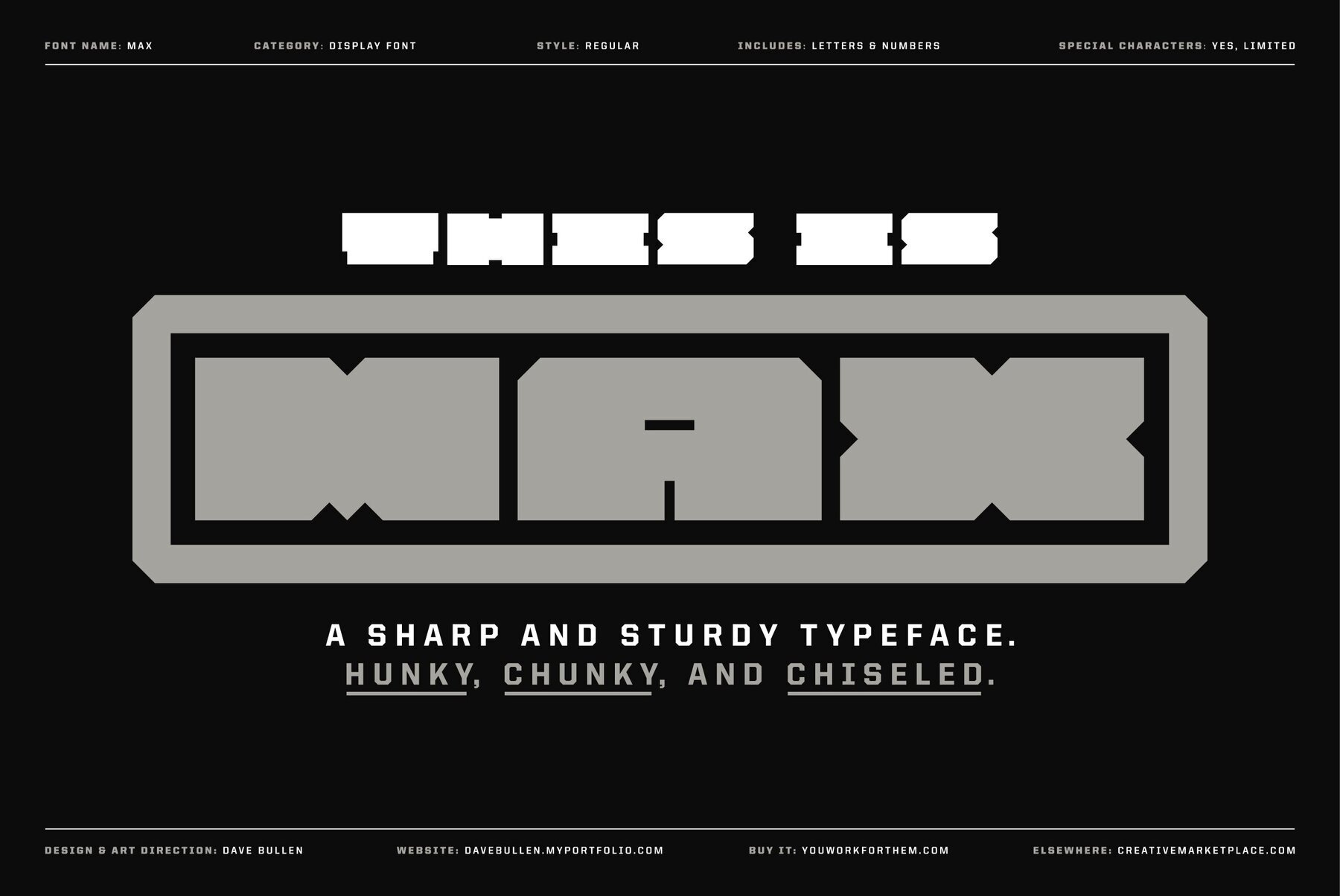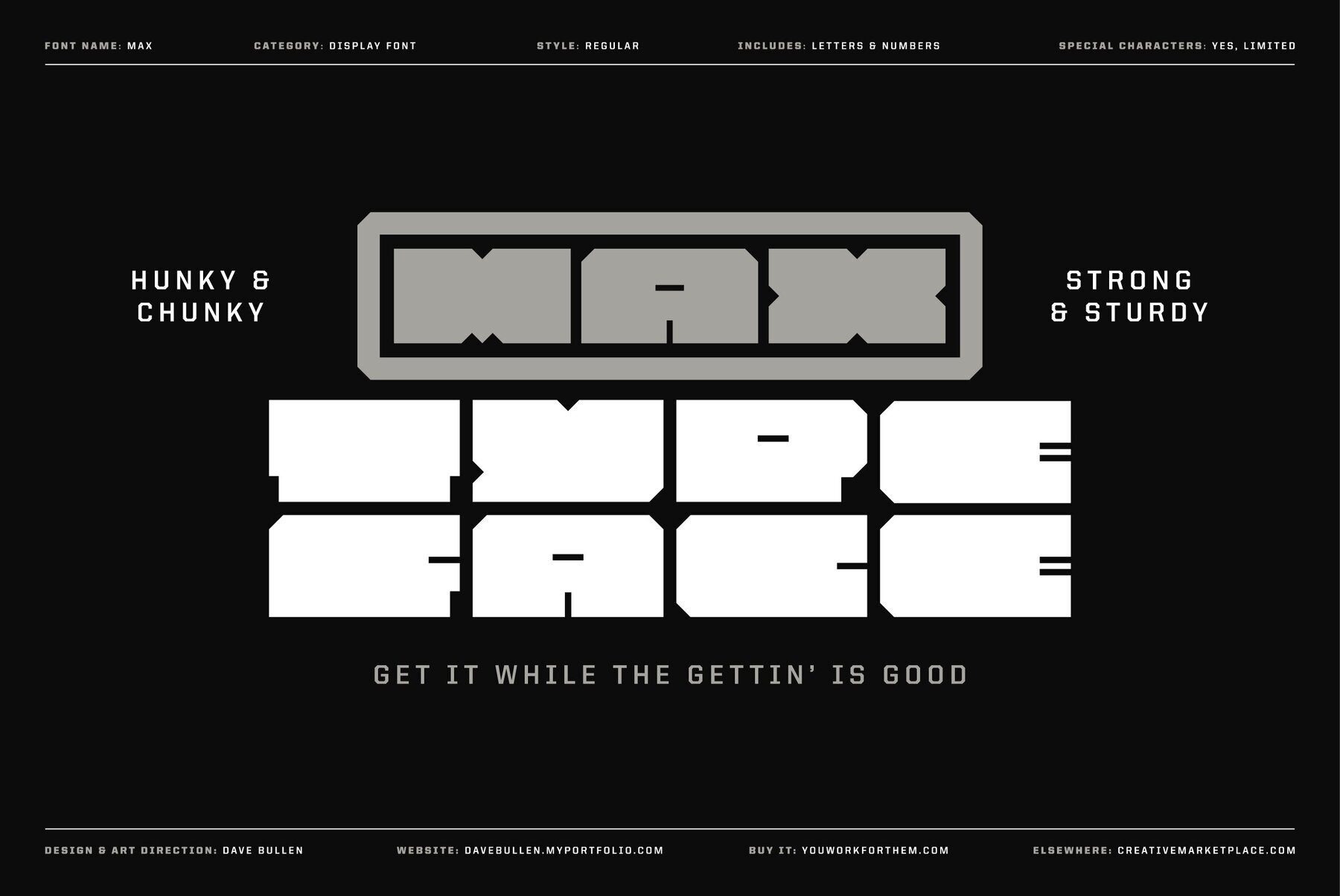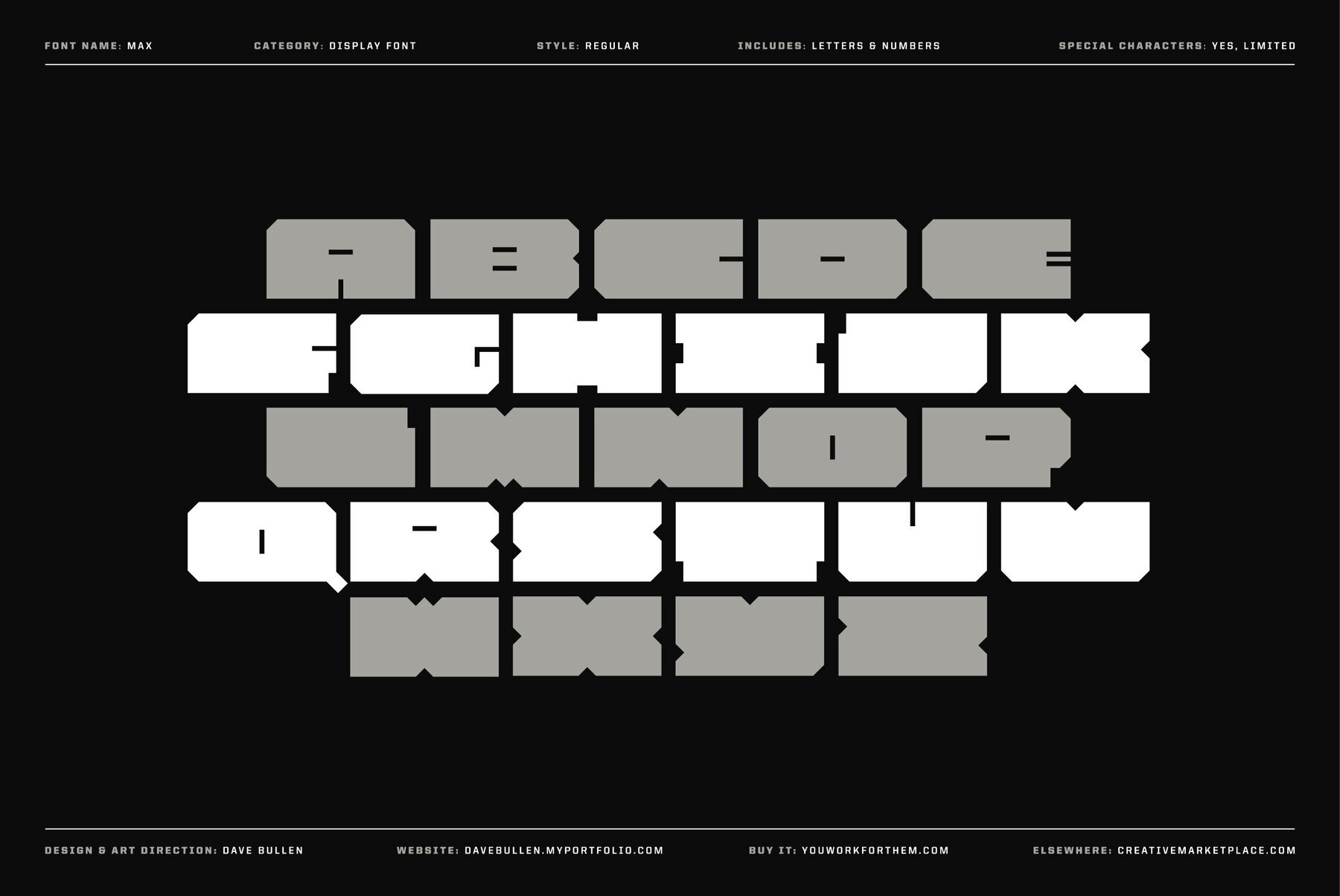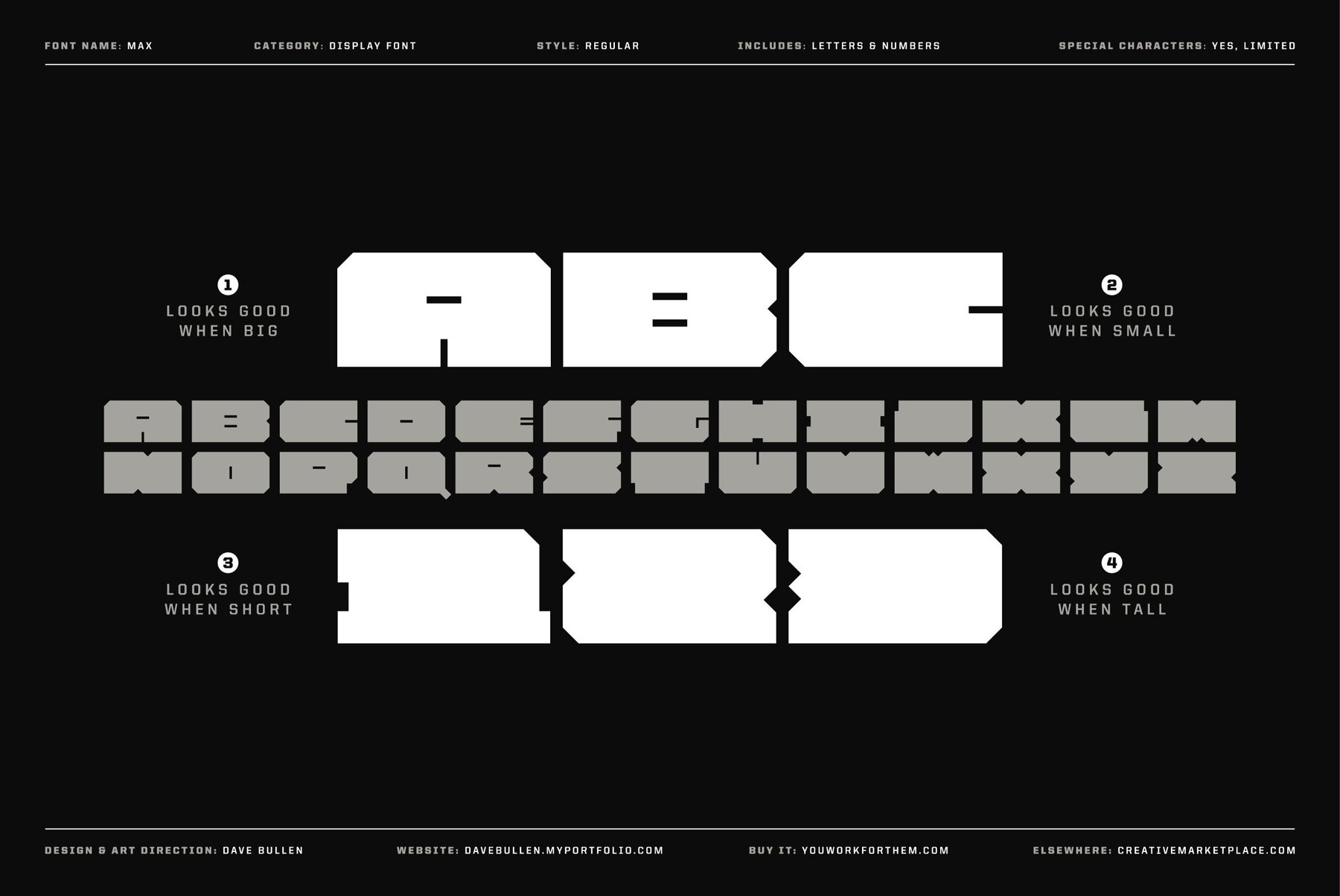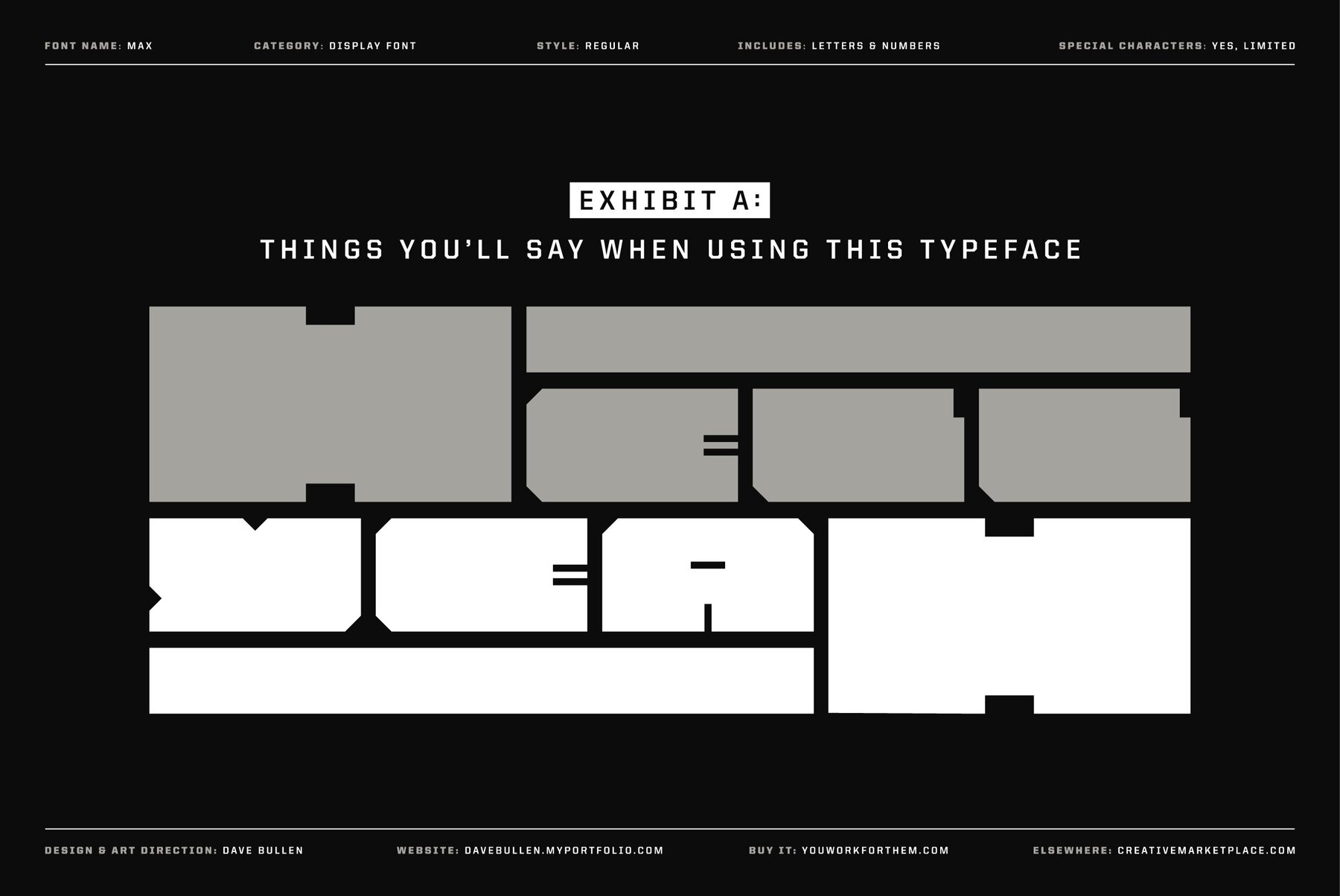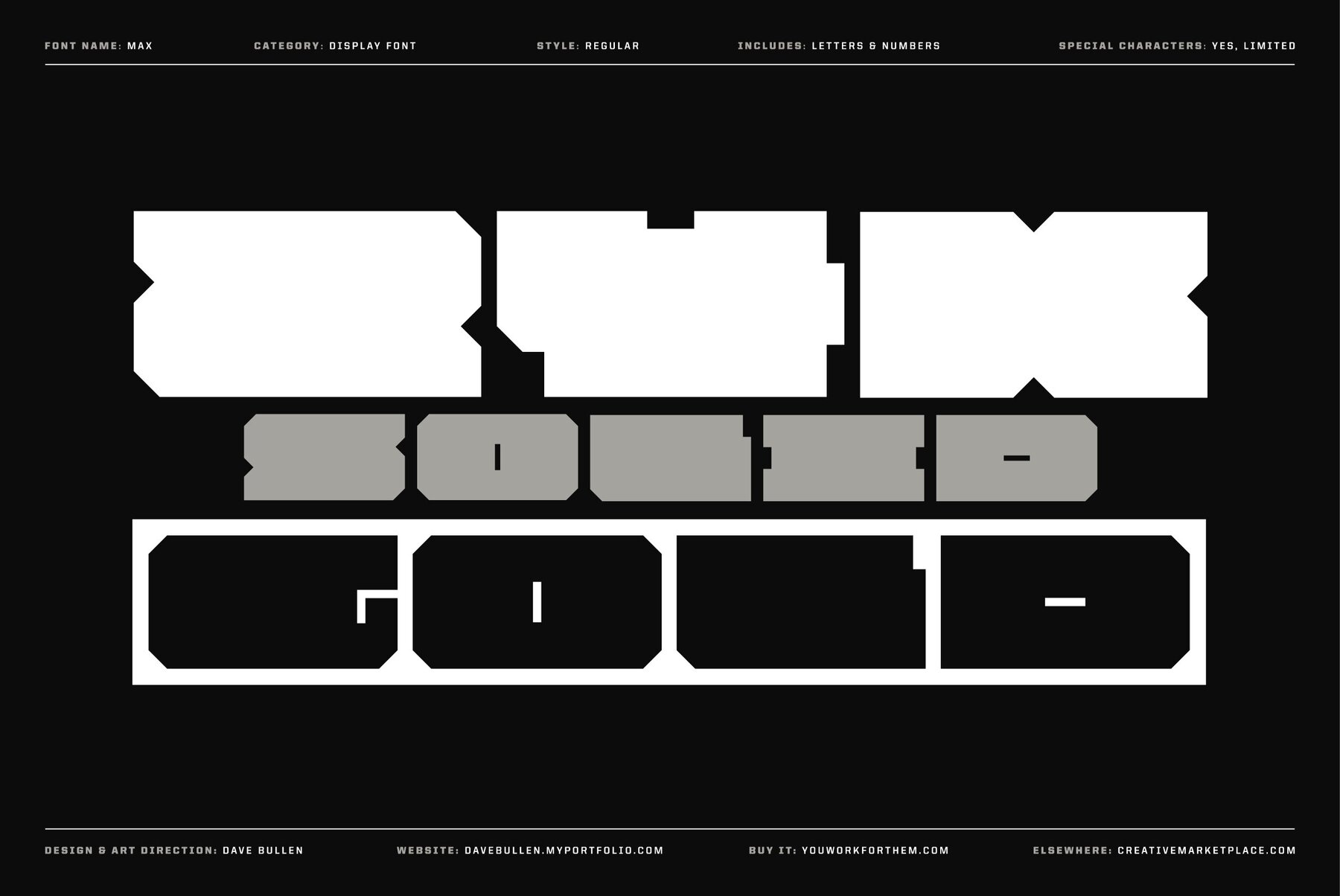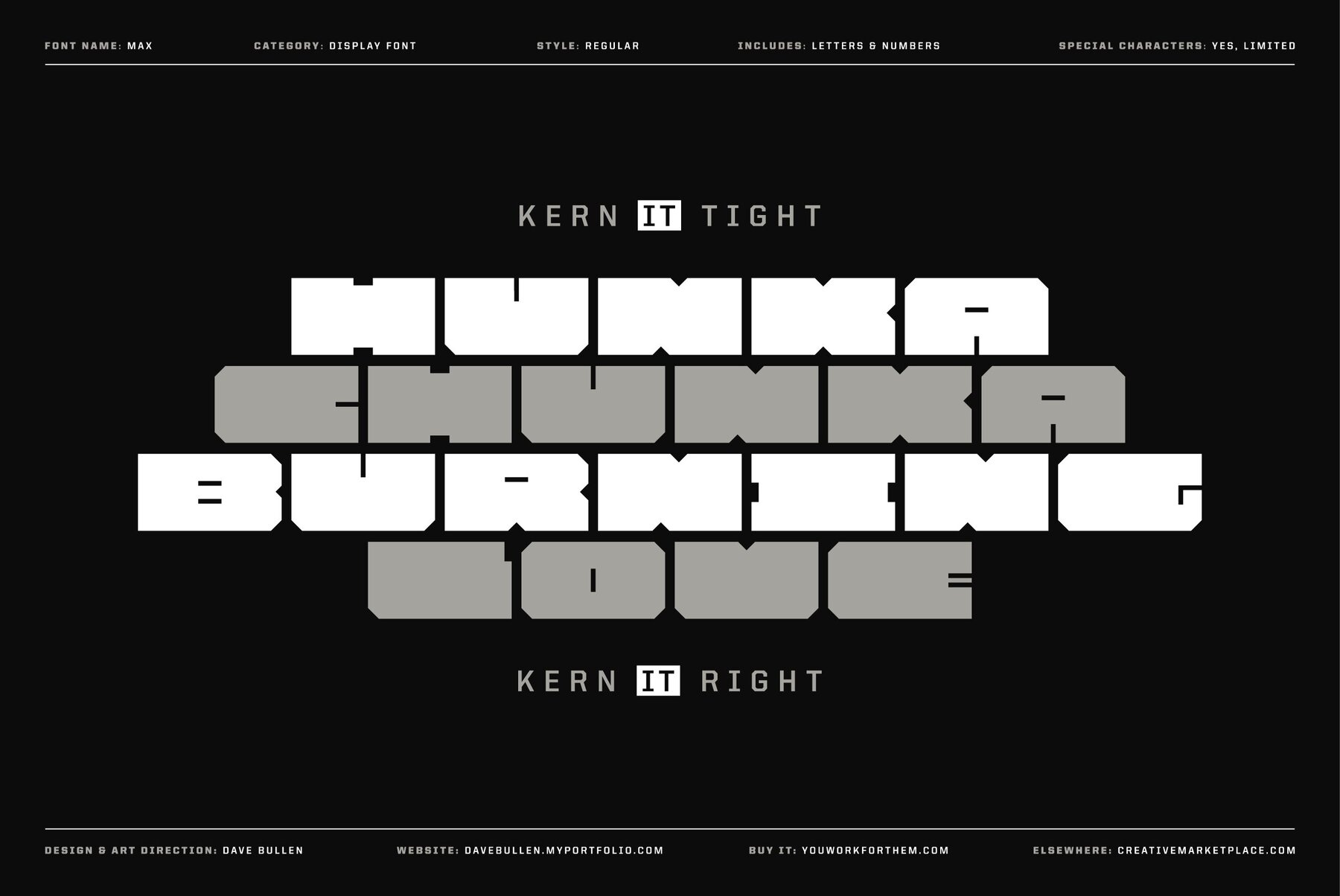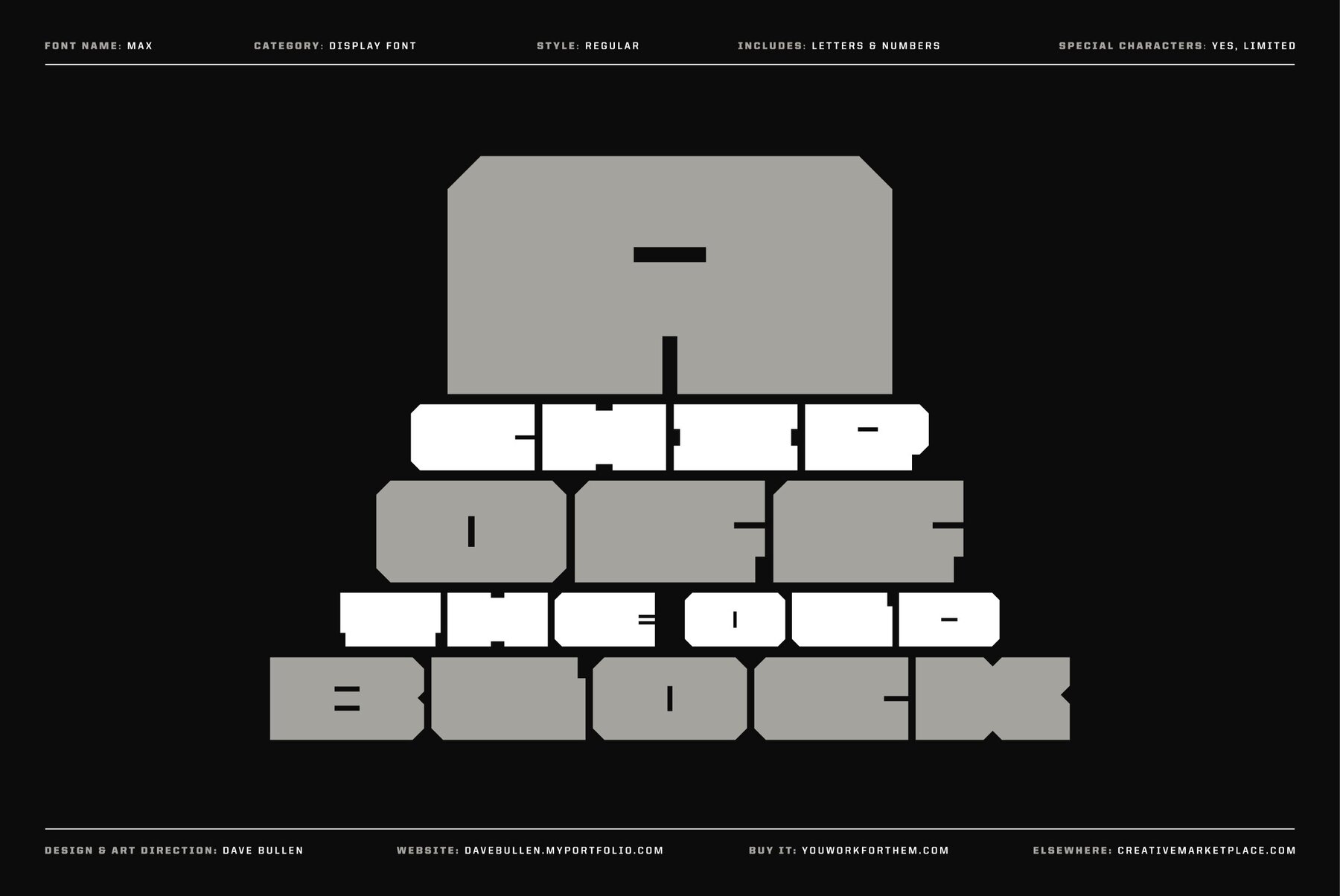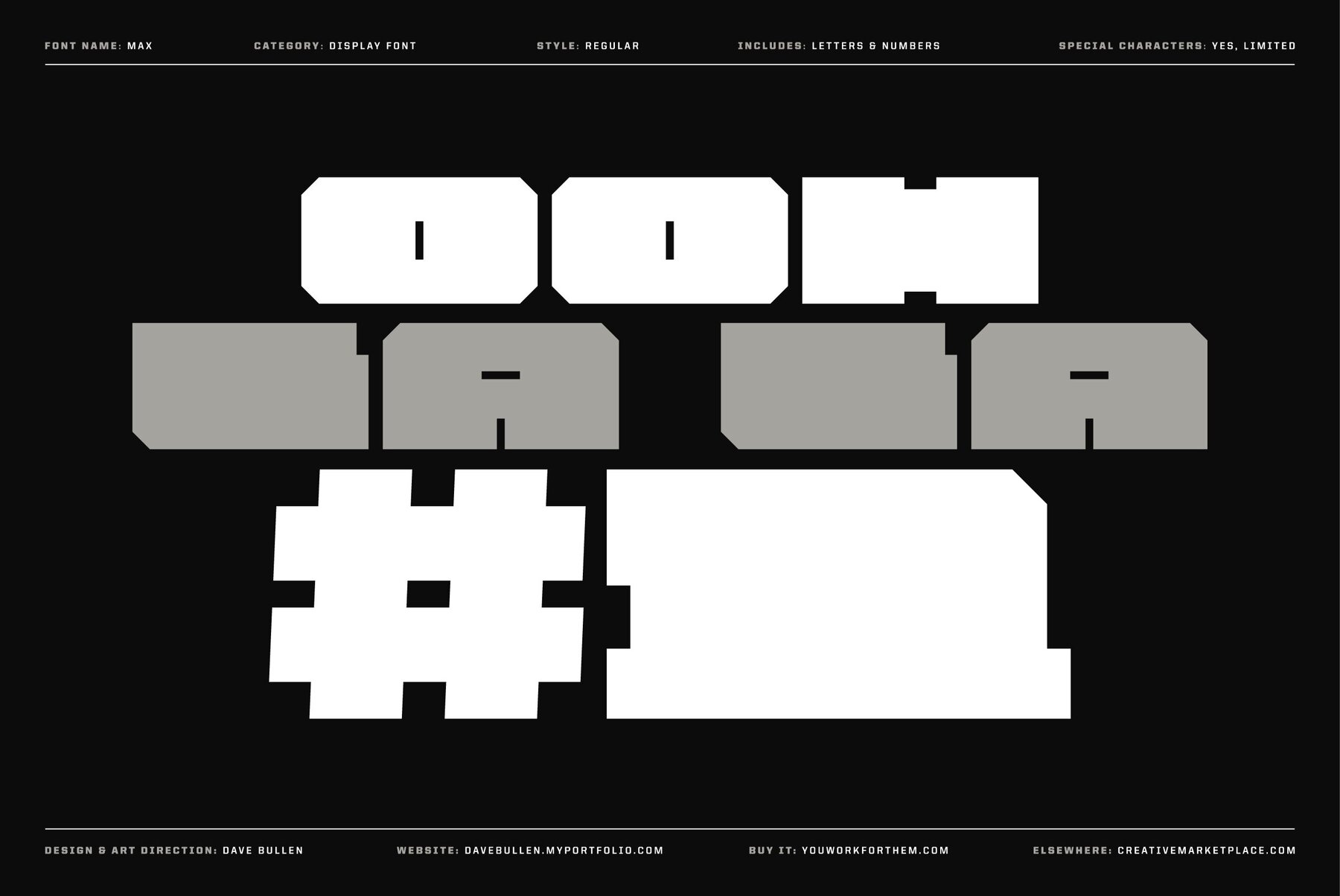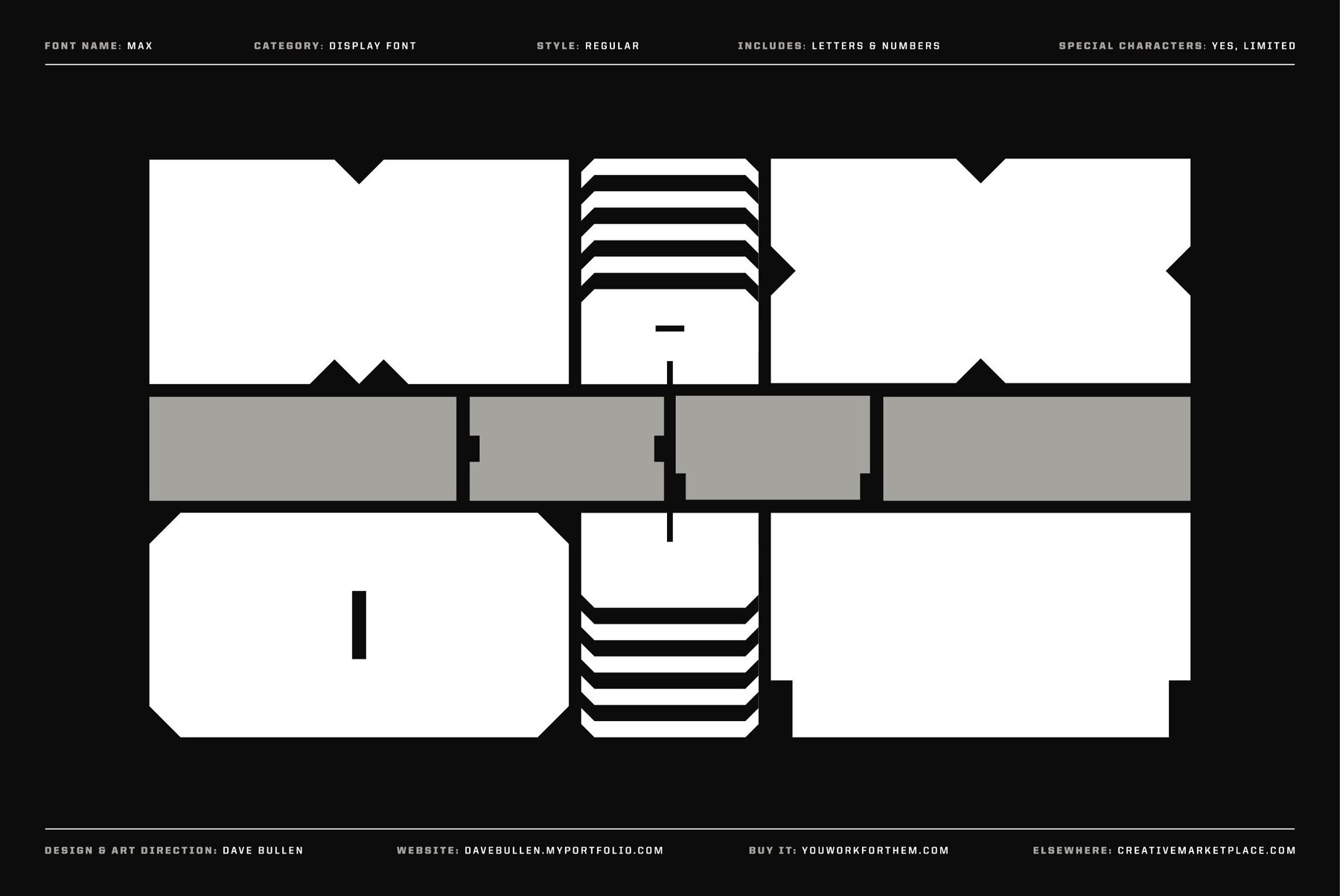
MAX Font
Max
Meet Max, a display font that brings an abundance of fun to any design project. Its robust and substantial style is both fierce and entertaining, making it an ideal choice for creative endeavors that demand a bold statement.Max: A Playful Display Font Full of Character
This font, designed by Dave Bullen, is perfect for adding dynamic flair to your designs.